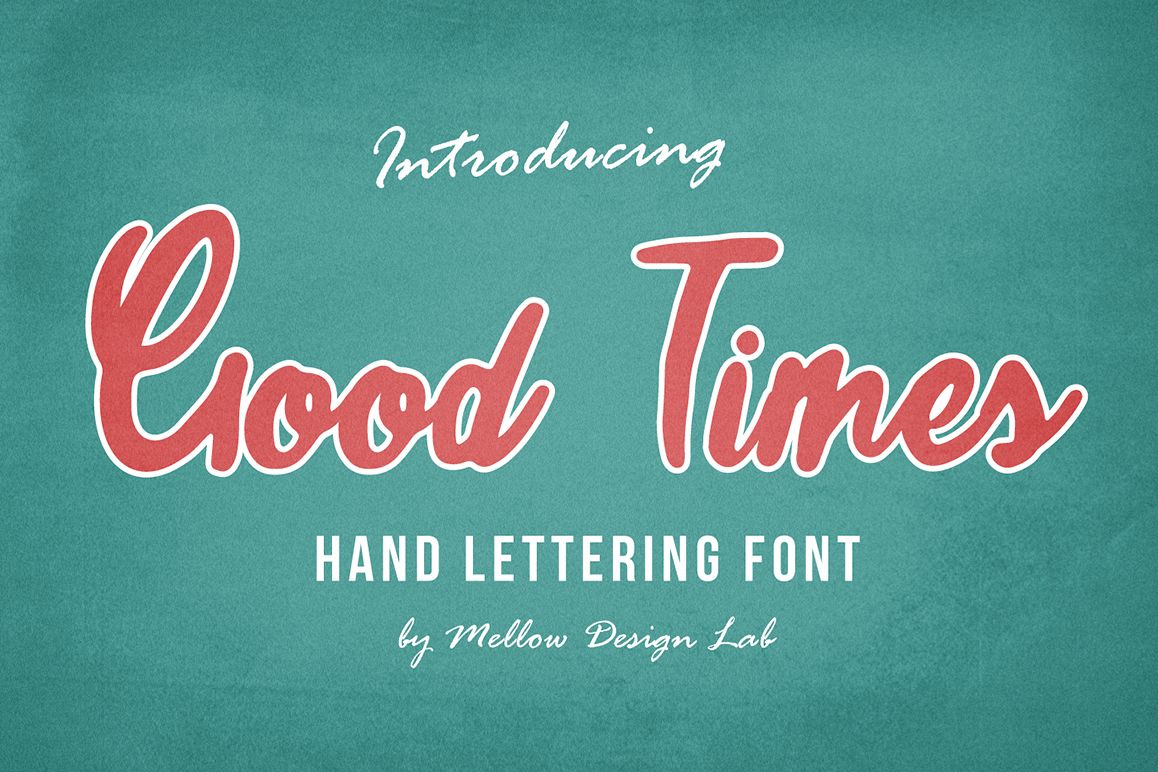
Good Times
Introduce my new modern typeface - Good Times. Good Times is very easy to use. It works in Illustrator, Photoshop and another programs. With their help, you can create a logo or beautiful postcard and more!